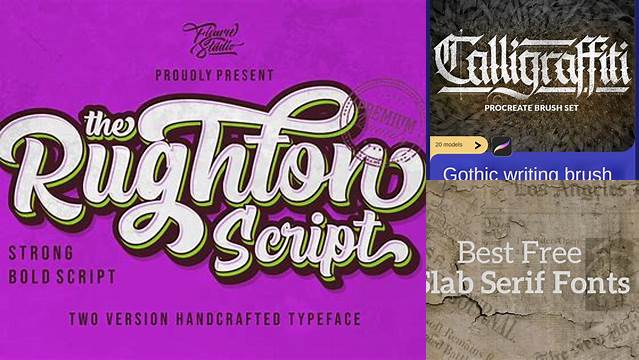
Free Procreate Fonts: Download Now & Elevate Your Art!
Hey everyone! Are you ready to take your Procreate artwork to the next level? One of the easiest ways to add a personal touch and elevate your designs is by using custom fonts. But let's be real, finding high-quality fonts that are also free can feel like searching for a needle in a haystack. That's why I've put together this comprehensive guide to help you discover the best free fonts to download for Procreate, ensuring your projects always look their best. Let's dive in!
2. Top Websites for Free Procreate Fonts
Okay, now that we've covered the legal stuff, let's get to the fun part: where to find these amazing free fonts! There are tons of websites out there offering free fonts, but some are definitely better than others. My go-to sites include DaFont, Google Fonts, FontSpace, and Creative Fabrica (they often have freebies!). Each of these sites has a huge selection of fonts in various styles, so you're sure to find something you love. Plus, they usually have clear licensing information, making it easier to stay on the right side of the law. These are just a few of the many resources available for free fonts to download for Procreate.
3. Exploring Google Fonts for Procreate
Google Fonts is an absolute treasure trove of high-quality, free fonts. What's even better? All fonts on Google Fonts are open source, meaning you can use them for pretty much anything you want – personal or commercial. Plus, Google Fonts makes it easy to preview fonts and even download them directly to your iPad. Some popular choices for Procreate include Open Sans, Roboto, and Montserrat. But don't be afraid to explore and find something unique that fits your style! Exploring Google Fonts for free fonts to download for Procreate can lead to the discovery of versatile and professionally designed typefaces perfect for any project.
4. DaFont: A Vast Library of Free Fonts
DaFont is another fantastic resource, boasting a massive collection of fonts created by designers from all over the world. You'll find everything from elegant scripts to quirky display fonts. The site is well-organized, making it easy to search for fonts by category or style. Just be sure to carefully check the license for each font before using it, as some are only free for personal use. However, with a little digging, you can uncover some real gems on DaFont for free fonts to download for Procreate.
5. FontSpace: Discovering Unique Free Fonts
FontSpace is another website worth checking out, especially if you're looking for something a little different. They have a wide variety of fonts, including many that you won't find on other sites. Like DaFont, FontSpace allows designers to upload their fonts, so you'll find a mix of quality and styles. Always verify the license before using any font for commercial projects. Using FontSpace for free fonts to download for Procreate can provide access to unique and less common font designs, perfect for standing out from the crowd.
6. Creative Fabrica Freebies: A Designer's Dream
Creative Fabrica is known for its premium fonts and graphics, but they also have a section dedicated to freebies! You can often find amazing fonts that are only free for a limited time, so it's worth checking back regularly. These fonts are usually of very high quality, making them a great addition to your Procreate toolkit. Grabbing Creative Fabrica freebies ensures access to professionally crafted free fonts to download for Procreate, enhancing the visual appeal of your artwork.
7. Installing Fonts on Your iPad for Procreate
Okay, you've found some awesome fonts – now what? Getting them onto your iPad so you can use them in Procreate is actually pretty simple. First, download the font file (usually a .ttf or .otf file). Then, you'll need an app like iFont or AnyFont to install the font on your system. Open the app, import the font file, and follow the instructions to install it. Once the font is installed, it will be available in Procreate and other apps on your iPad. The process of installing free fonts to download for Procreate onto your iPad is straightforward, allowing for immediate use within the app and other creative applications.
8. Using iFont to Install Free Fonts
iFont is a user-friendly app that makes installing fonts on your iPad a breeze. Simply download the app, open the font file you downloaded, and iFont will guide you through the installation process. The app also allows you to preview fonts before installing them, which is a handy feature. Using iFont to install free fonts to download for Procreate ensures a seamless and efficient font management process on your iPad.
9. AnyFont: Another Great Font Installation Tool
AnyFont is another popular choice for installing fonts on iOS devices. It works similarly to iFont, allowing you to import and install fonts with ease. AnyFont also supports installing fonts in bulk, which can save you time if you have a lot of fonts to add to your iPad. With AnyFont, managing free fonts to download for Procreate becomes easier and more efficient, especially when dealing with multiple font files.